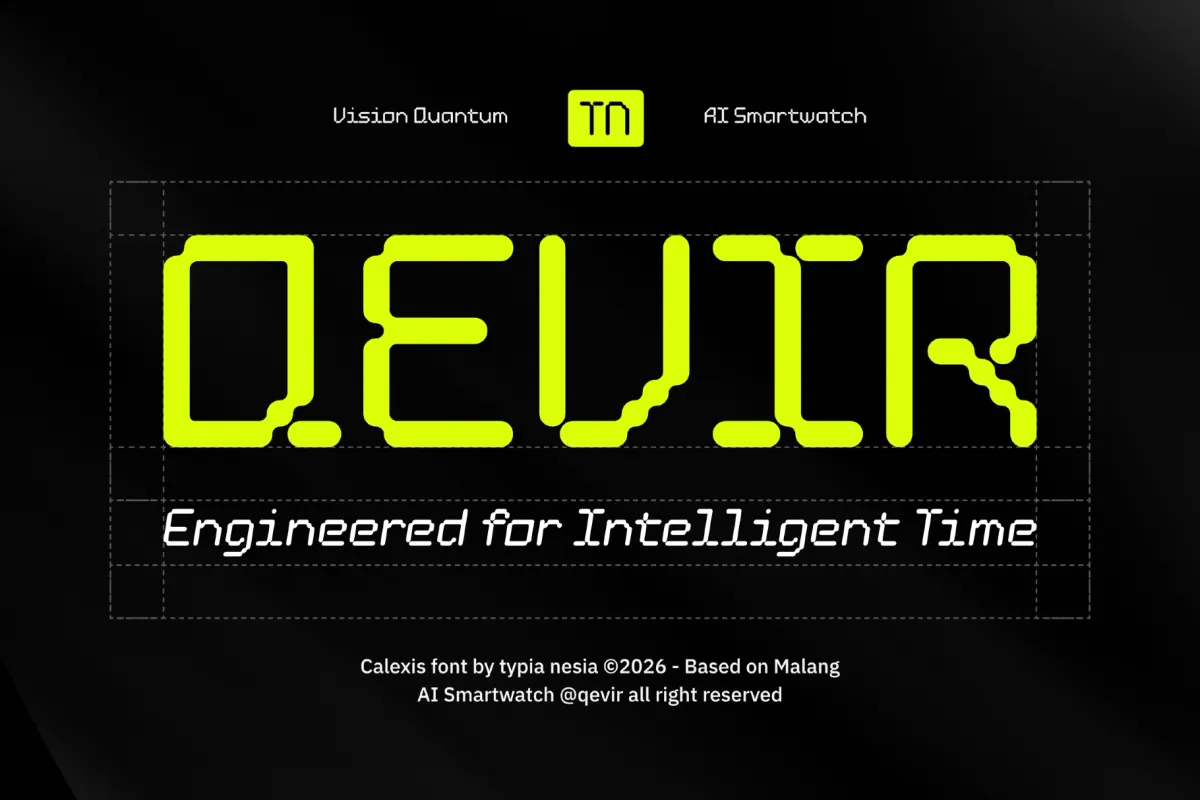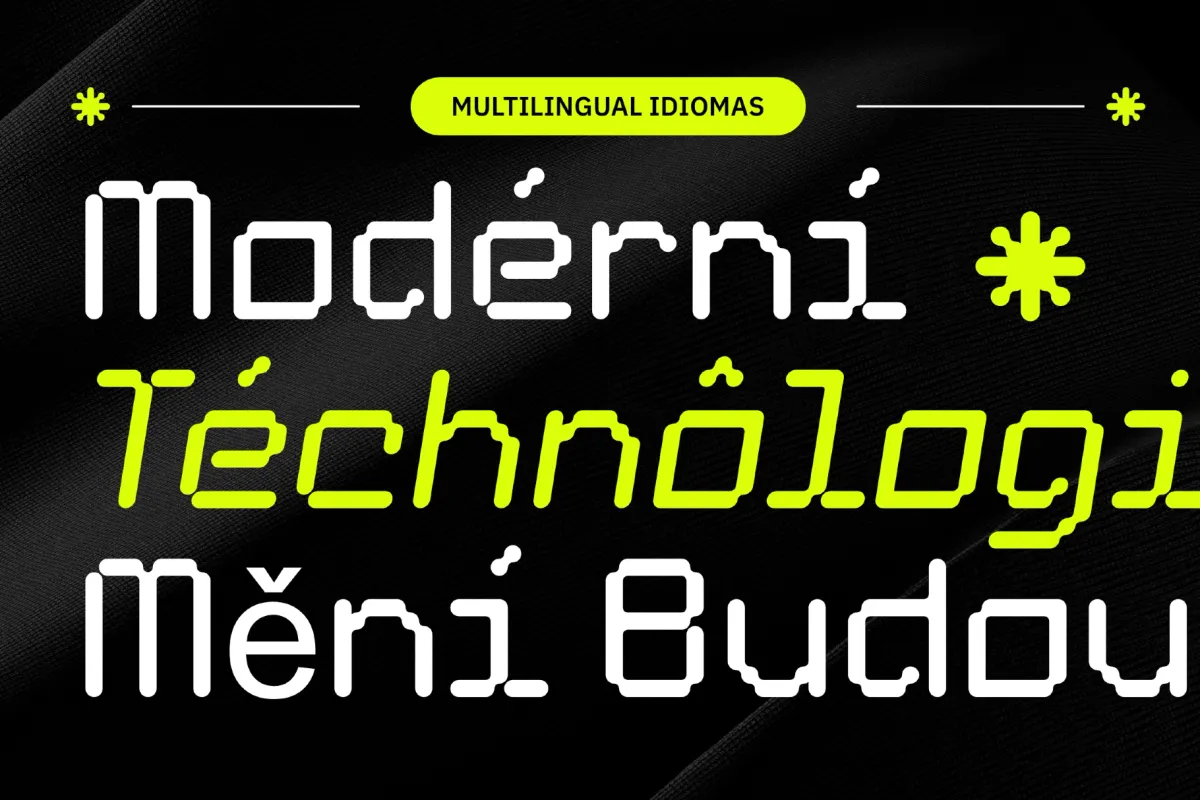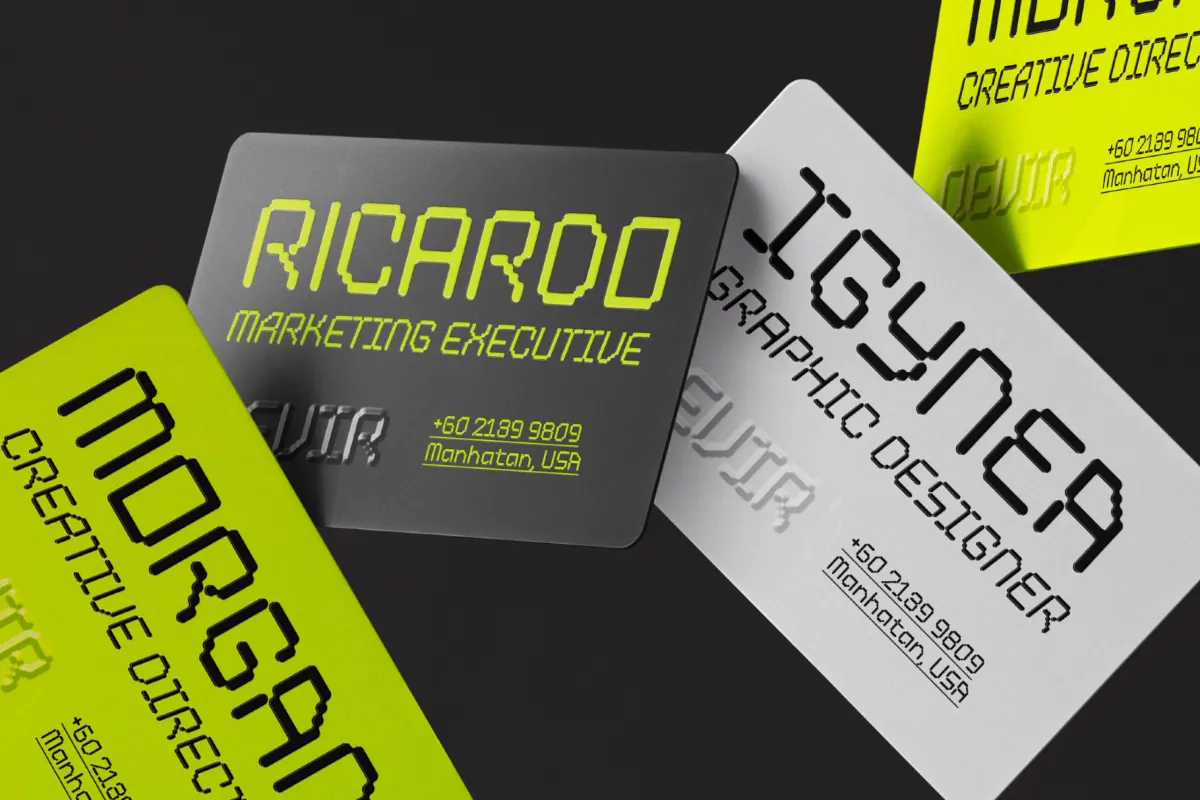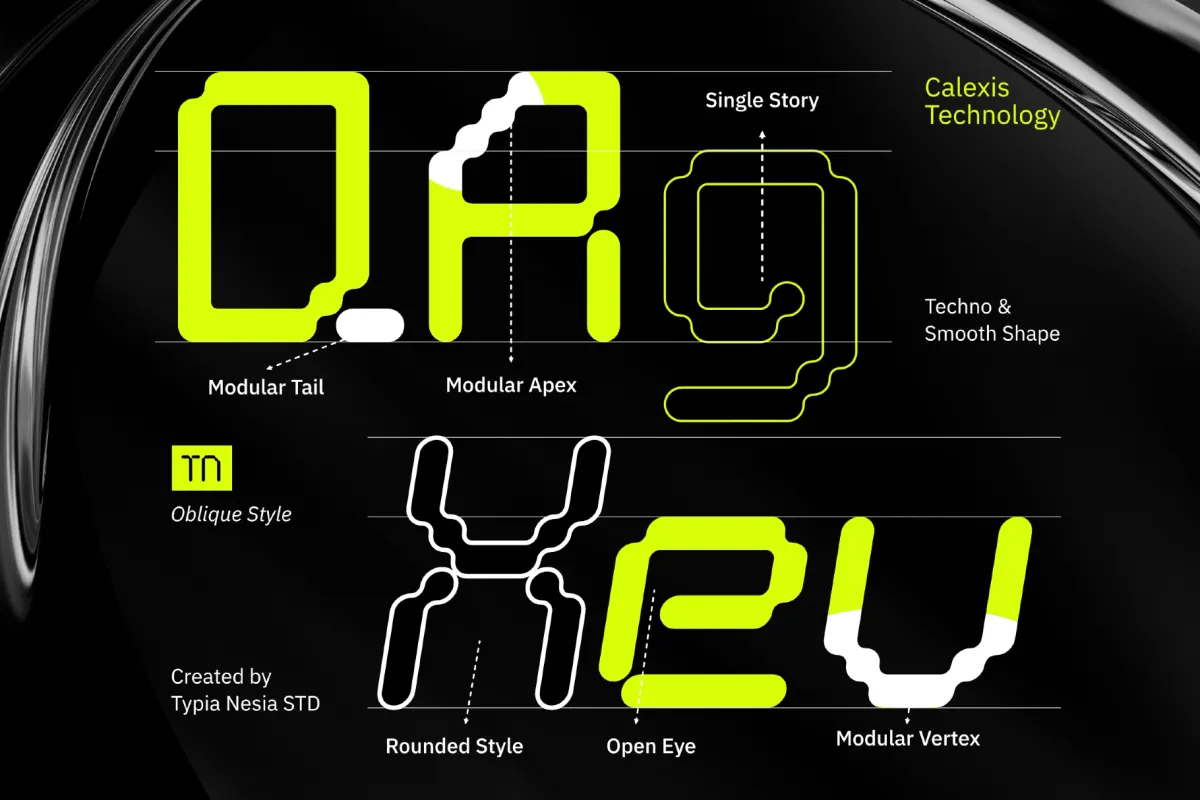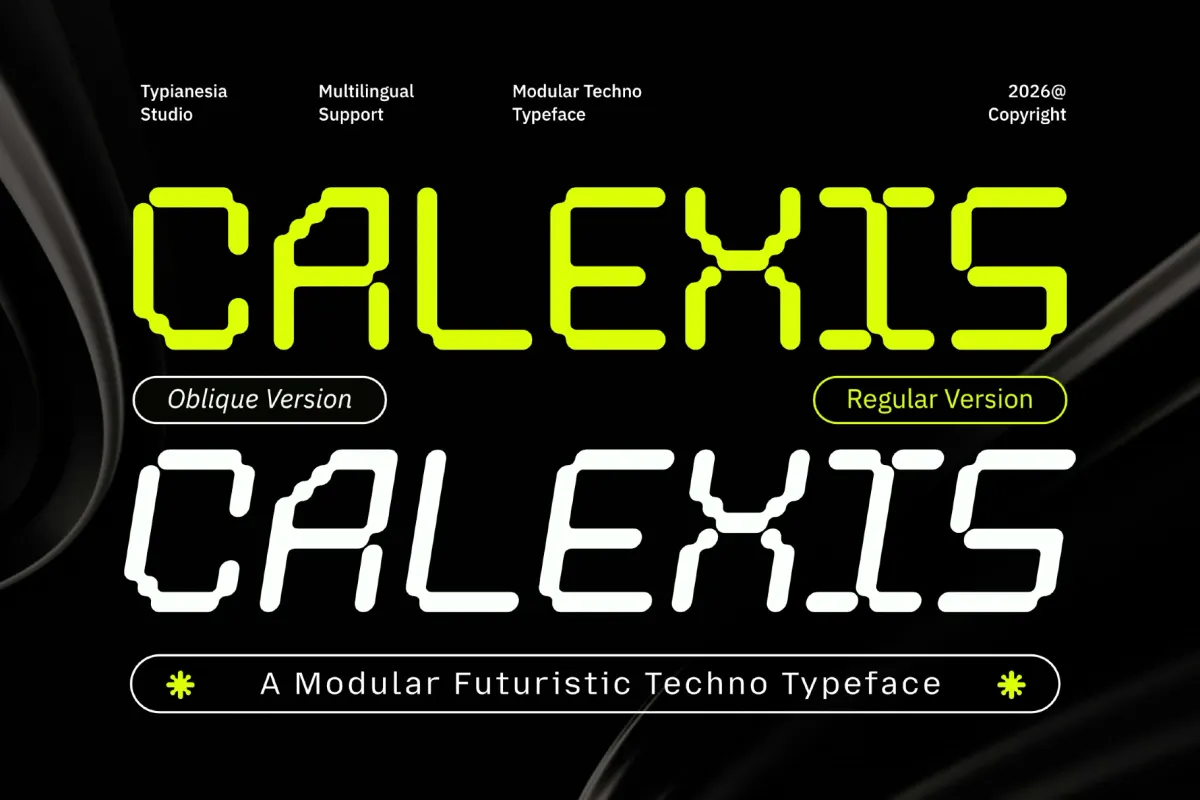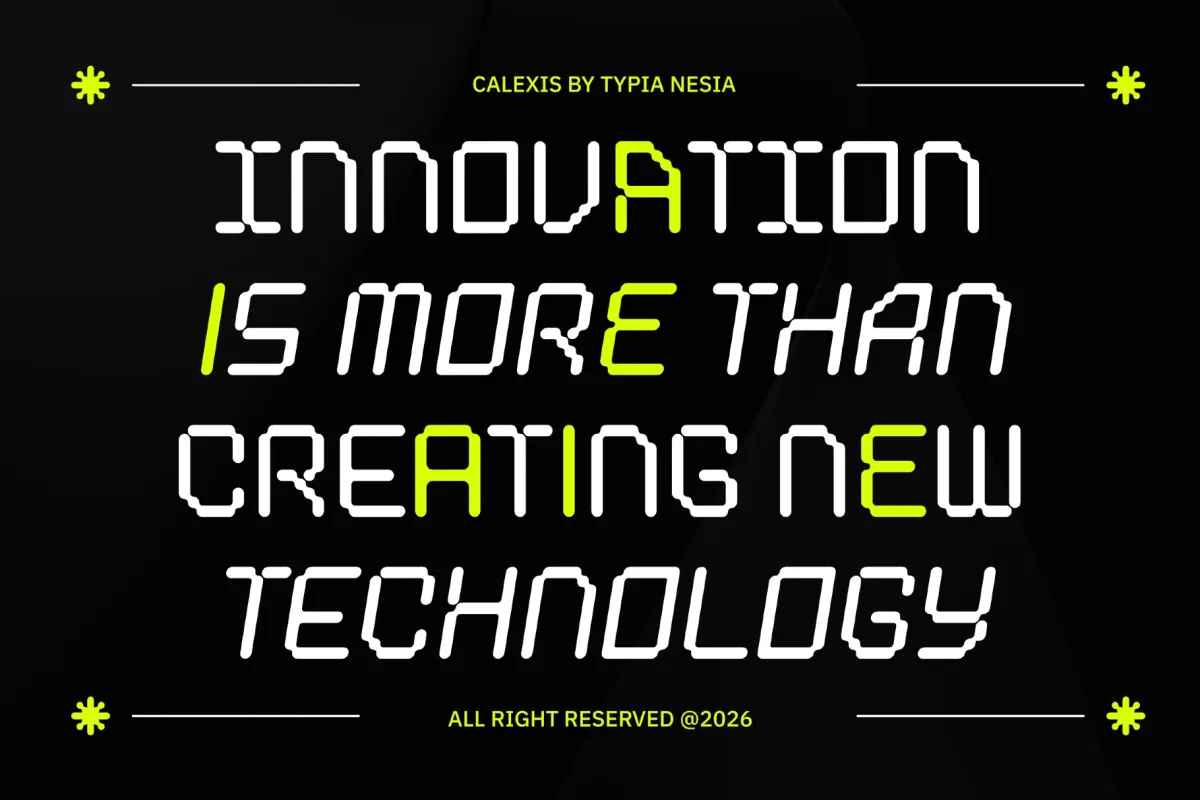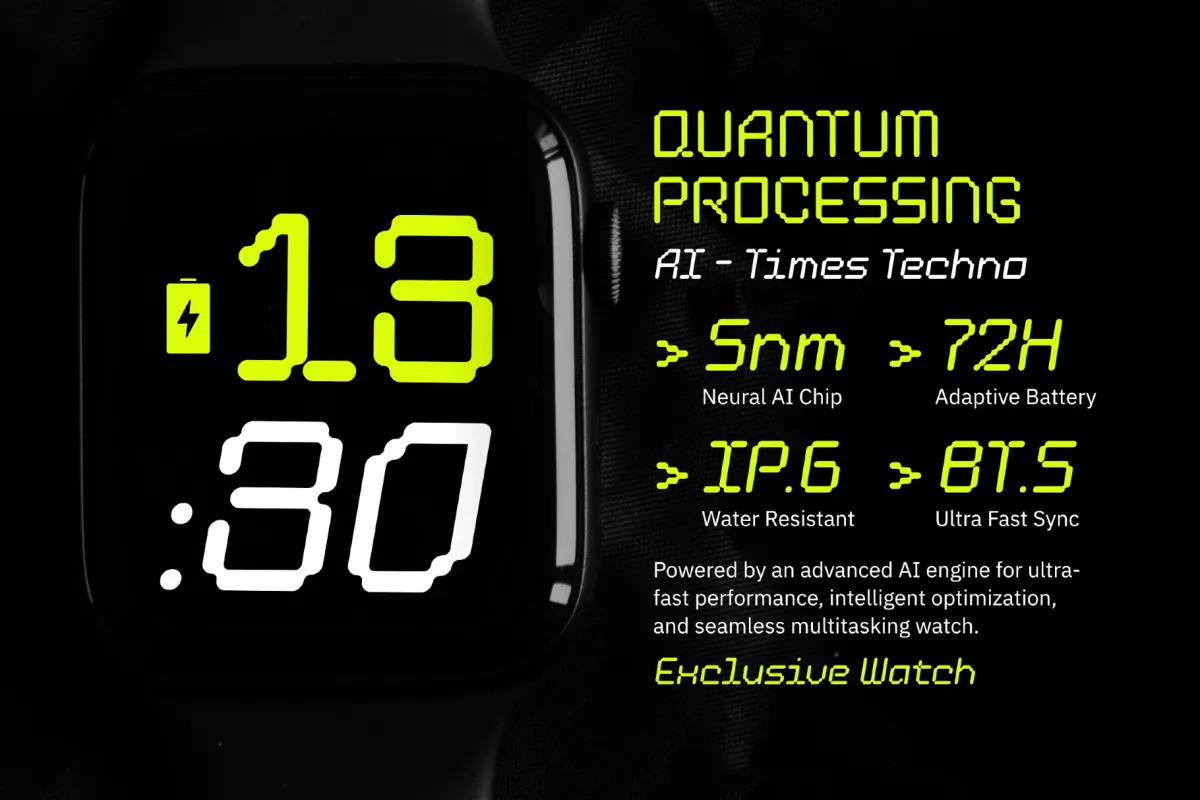
Calexis - Futuristic Techno Display Font
Calexis is a futuristic techno display font whose letterforms build from rounded modular segments, closer to a digital watch face pushed into a full alphabet than a conventional geometric sans. Stylistic alternates swap into select letters, so headlines can shift their circuitry-like joints from word to word.
The companion Slanted style leans the same modular segments into motion for a more dynamic wordmark. Use it for esports logos, gaming titles, software branding, startup identities, UI interfaces, mobile apps, sci-fi movie posters, and product launch graphics.